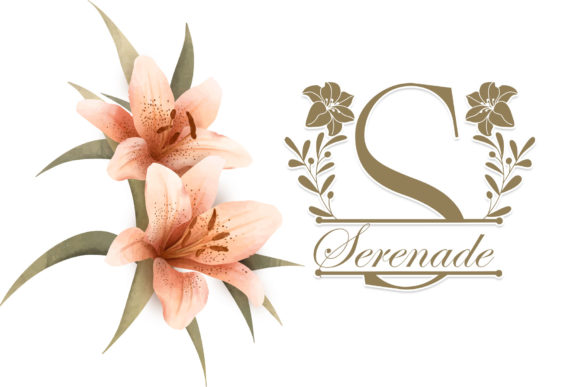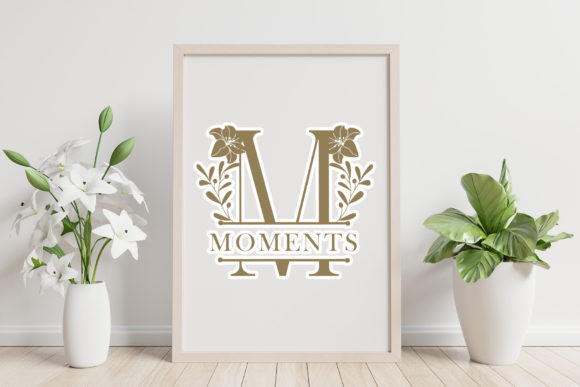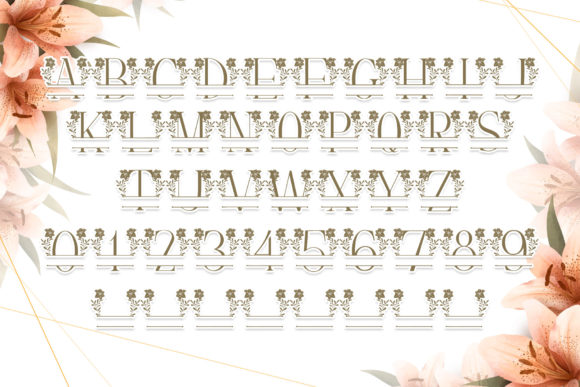
Introduction to Beauty Lily Line Monogram Font
Do you remember the moment when you decided to create something special for the one you love? Perhaps it was a romantic dinner invitation, a heartfelt birthday card, or a wedding invitation that would set the tone for the most magical day of your life. Whatever it was, I’m sure you wanted to make it perfect, with a personal touch that would make it truly unforgettable. This is where the Beauty Lily Line Monogram Font comes in – a delicate, elegant, and unique decorative font that adds a touch of romance to any creative project.
As a designer, you’re always on the lookout for high-quality design resources that can elevate your work and make it stand out from the crowd. The Beauty Lily Line Monogram Font is a valuable addition to your design toolkit, offering a transparent background that makes it easy to layer and customize. And the best part? It’s free to download, making it an accessible resource for designers of all levels.
Key Features of Beauty Lily Line Monogram Font
- High-quality design resource for creative projects, offering a unique and elegant aesthetic.
- Monogram font with a beautiful lily design, perfect for adding a touch of elegance to any project.
Honest Review: Beauty Lily Line Monogram Font
As a designer, I’m always on the lookout for unique and high-quality design resources to elevate my creative projects. The Beauty Lily Line Monogram Font is one such find that caught my attention. In this review, I’ll share my honest thoughts on this font and whether it’s worth adding to your design arsenal.
- High-quality design: The Beauty Lily Line Monogram Font is beautifully crafted, with delicate lines and elegant details that make it perfect for creating sophisticated designs.
- Limited character set: The Beauty Lily Line Monogram Font only comes with a limited character set, which might not be suitable for lengthy text-based projects.
- No bold or italic variations: The font lacks bold and italic variations, which could be a drawback for designers who prefer to experiment with different styles.
Overall, the Beauty Lily Line Monogram Font is a lovely addition to any designer’s toolkit. While it may have some limitations, its high-quality design and free download make it a worthwhile resource for creative projects. If you’re looking for a beautiful monogram font to add some elegance to your designs, I’d definitely recommend giving it a try!
The Beauty Lily Line Monogram Font is a free download, high-quality design resource perfect for any creative project. This elegant font features a beautiful, hand-drawn design with a transparent background, making it ideal for a variety of applications.
The Beauty Lily Line Monogram Font is perfect for a variety of applications, including wedding invitations, branding, and packaging design. Its elegant design and transparent background make it ideal for any creative project.